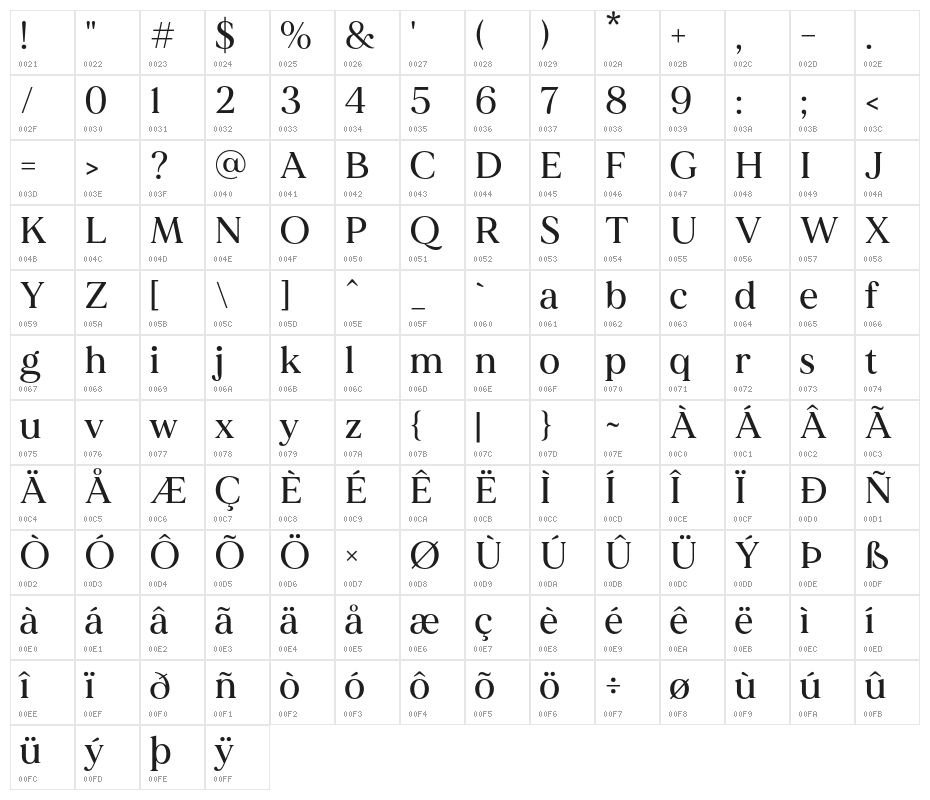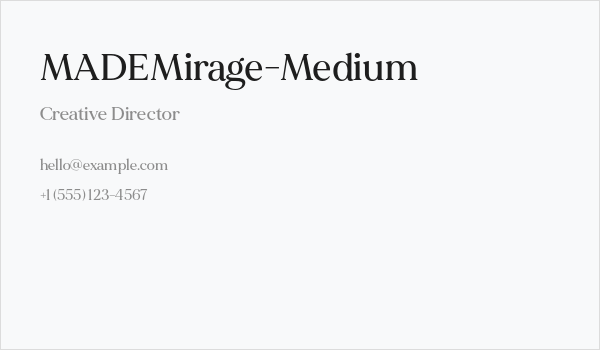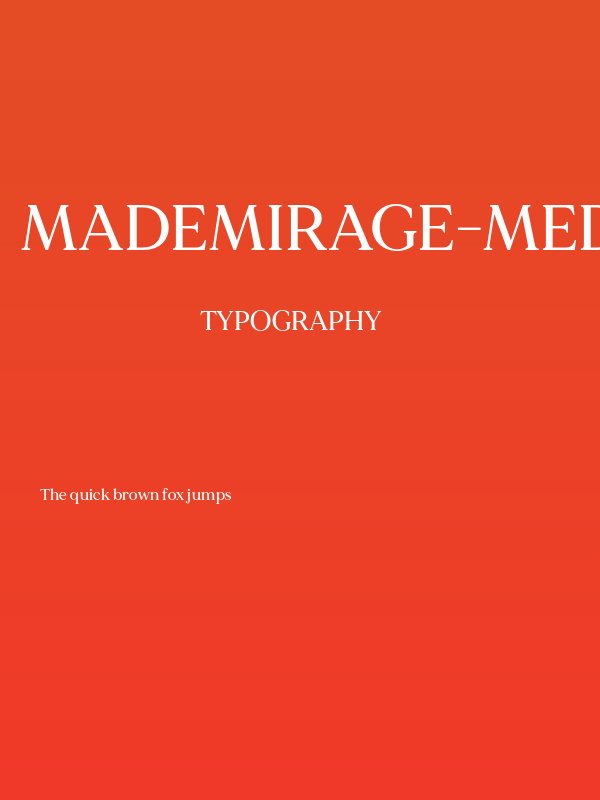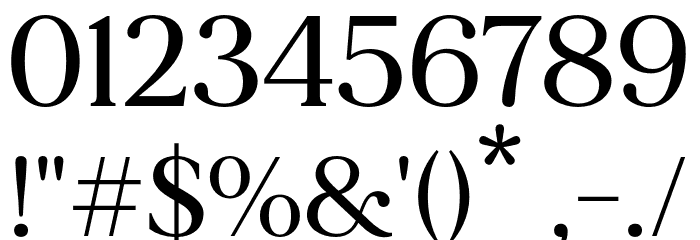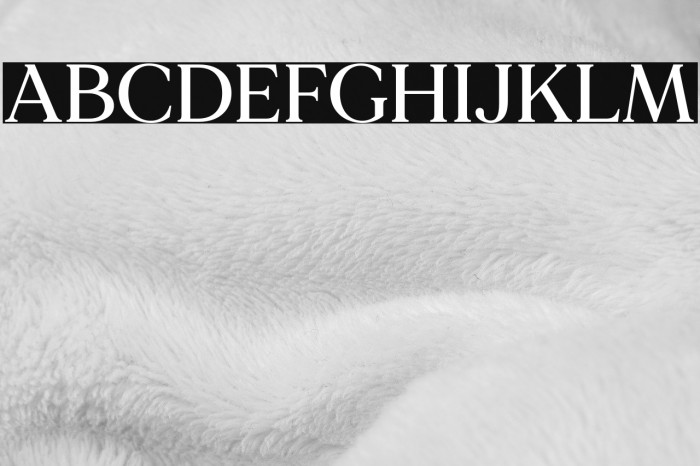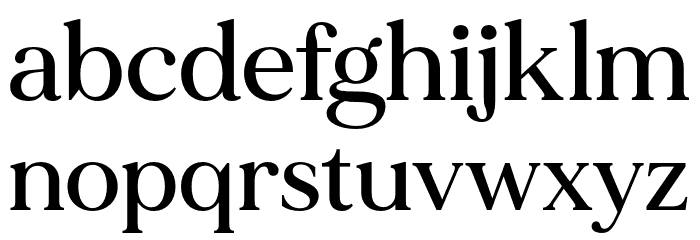
MADEMirage-Medium Font
MADEMirage-Medium Description
This font features a classic serif design with elegant and refined strokes. The uppercase letters are well-proportioned, exhibiting a traditional serif style that enhances readability. The lowercase letters maintain a consistent flow, with smooth curves and balanced spacing. The numerals are clear and distinct, making them suitable for various applications. Special characters are thoughtfully designed, ensuring they integrate seamlessly with the rest of the typeface. Overall, this font exudes a timeless and sophisticated appeal, making it versatile for both digital and print media.
| Proposed Projects | Ideal for editorial design, book covers, formal invitations, and branding projects that require a touch of elegance. |